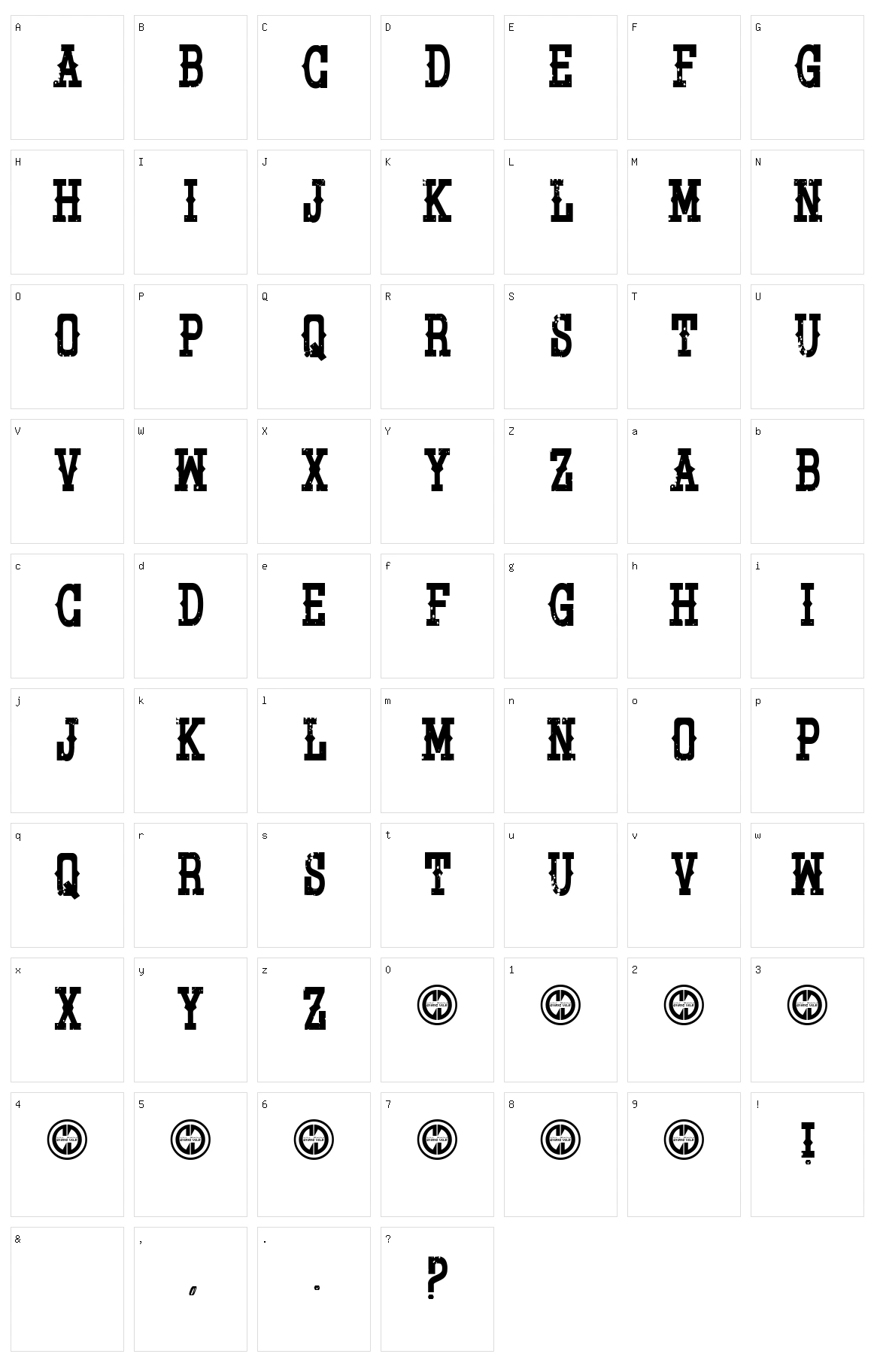
The free font Pistol Grip Pump is carefully designed by Font Monger, showcasing a thoughtful balance of creativity and usability and falls under the Western font style. When you download the ZIP file, it contains only 20.13 KB of font files, making it lightweight and quick to download. Please review the license details below to understand permitted usage and distribution rights. If license information is not available, we recommend using this font for personal projects only or contacting the author directly for commercial usage permissions.